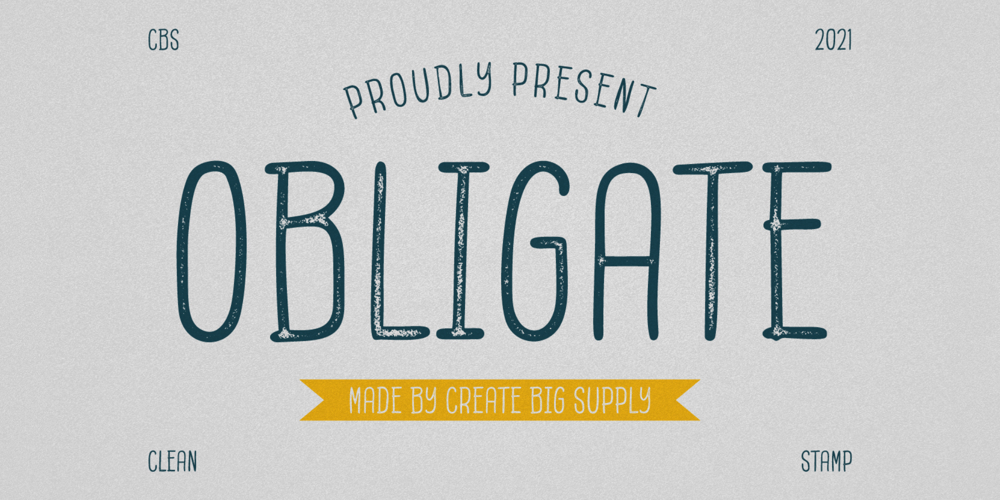
Obligate
Obligate font
Obligate Font Family was designed by Irpan Maulana and published by Create Big Supply. Obligate contains 2 styles and family package options. Introducing Obligate, a unique font that combines the clean elegance of a sans serif typeface with the vintage charm of a stamp effect. With its clean and stamp styles, Obligated brings a touch of nostalgia and authenticity to your designs. This versatile font is perfect for creating retro-inspired projects, vintage logos, labels, posters, and more. Let your creativity soar as you explore the possibilities of Obligated.Obligated features both uppercase and lowercase letters, ensuring flexibility and variety in your designs. The inclusion of numbers and punctuation allows you to create cohesive and comprehensive compositions. With multilingual support, you can effortlessly incorporate different languages into your designs, making it suitable for projects with a global reach.This font is PUA encoded, meaning you can easily access all the glyphs and swashes. The extensive character set includes a wide range of special characters, enabling you to add unique flourishes and decorative elements to your text. Whether you want to create headlines, titles, or eye-catching details, Obligated provides the tools to make your designs stand out.Embrace the clean and stamp vintage retro aesthetic with Obligated. Its combination of elegance and nostalgia makes it a versatile choice for various design projects. Whether you’re a professional designer, a creative enthusiast, or someone looking to add a touch of vintage charm to their creations, Obligated is a must-have font for your collection.